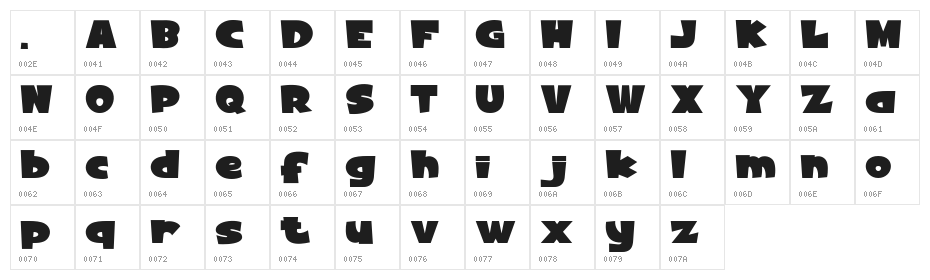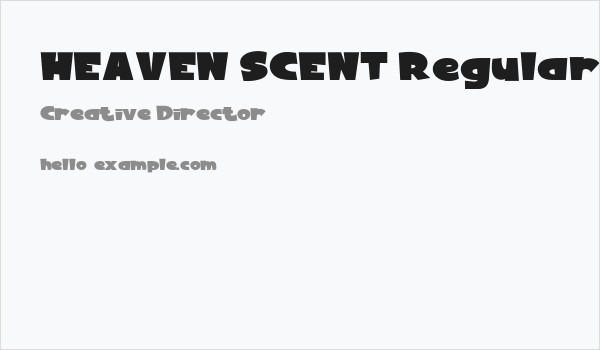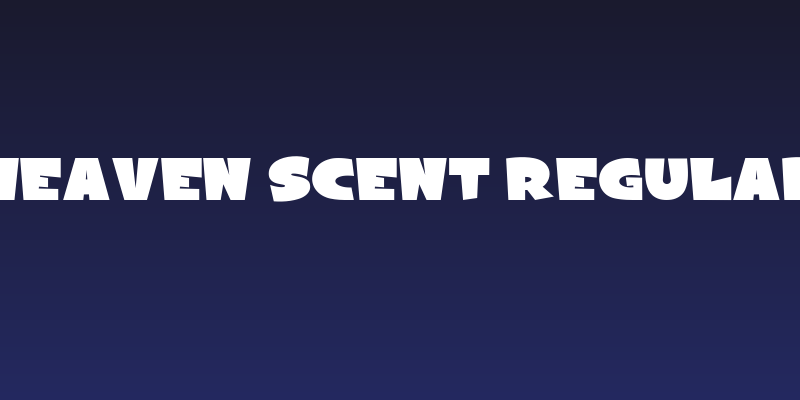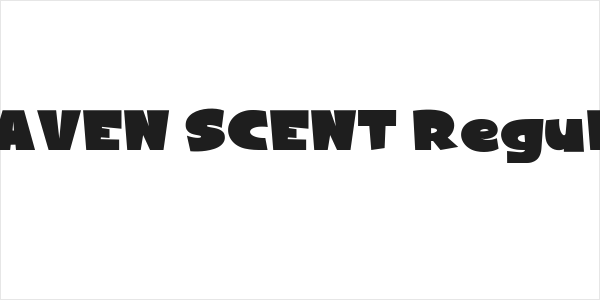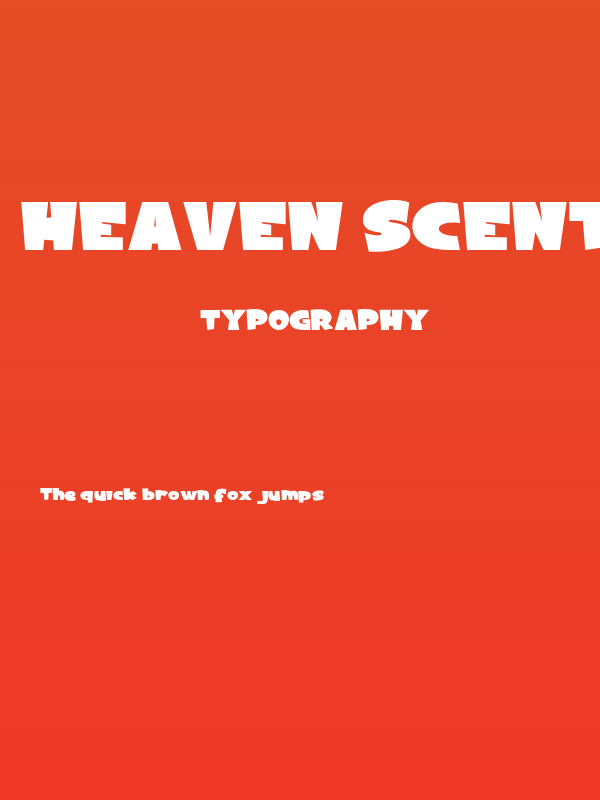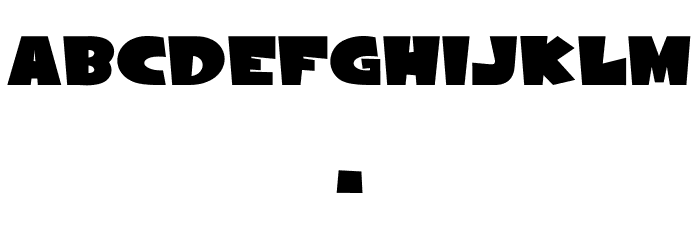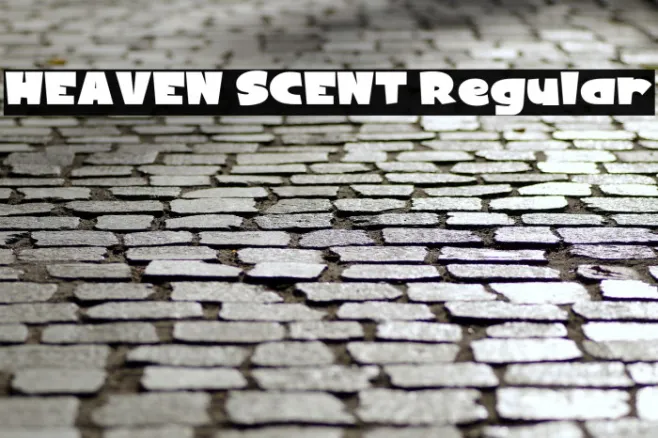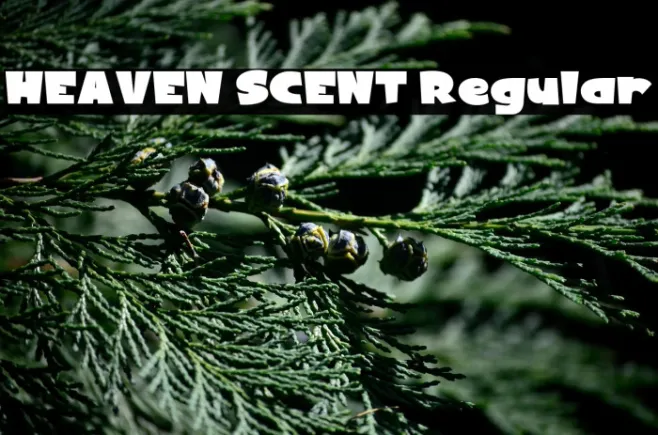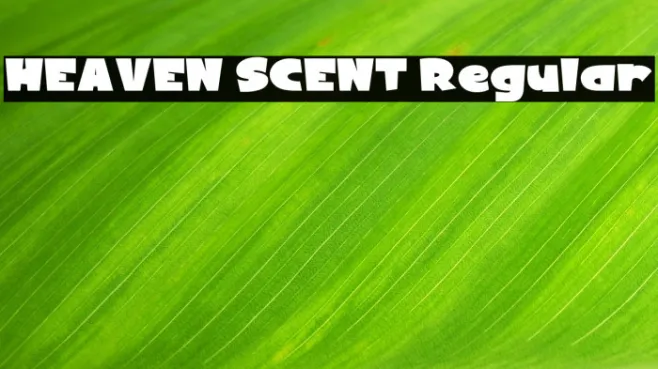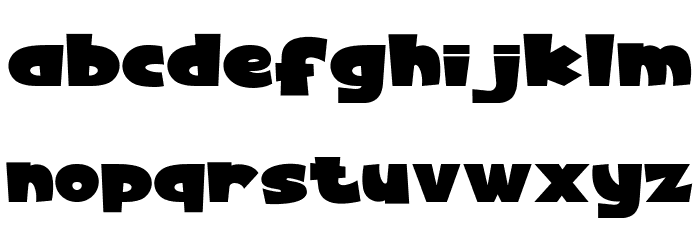
HEAVEN SCENT Regular Font
HEAVEN SCENT Regular Description
This font features a bold and playful design with exaggerated, chunky letterforms that convey a sense of fun and creativity. The characters are wide and heavily weighted, with a whimsical style that includes subtle curves and angles, giving it a dynamic and lively appearance. The uppercase and lowercase letters maintain a consistent style, ensuring readability while adding a unique flair. The font's boldness makes it stand out, making it ideal for attention-grabbing headlines or creative projects. The special characters are designed to match the overall aesthetic, ensuring a cohesive look across all text elements.
| Overall Style | Playful, Creative |
| Proposed Projects | Perfect for children's books, playful branding, posters, and creative advertising campaigns. |